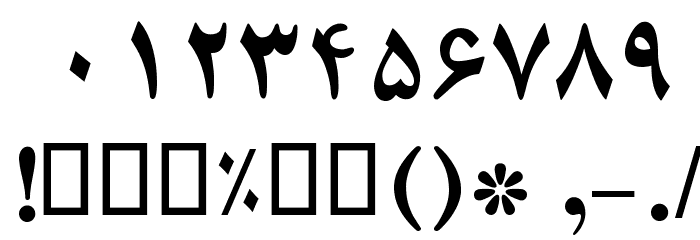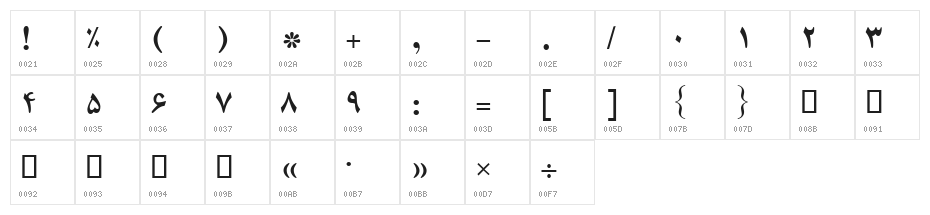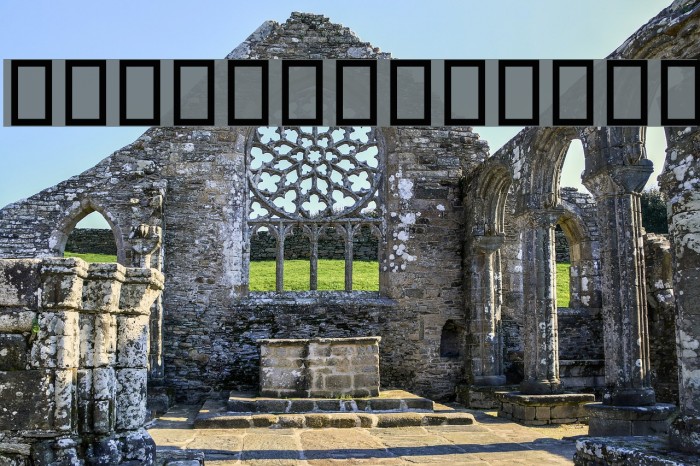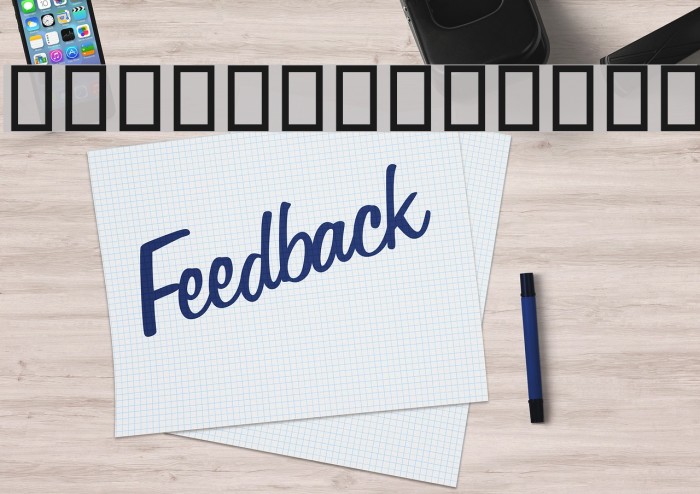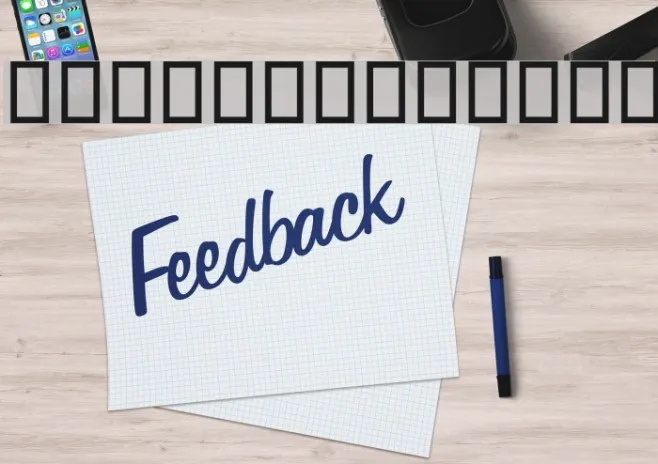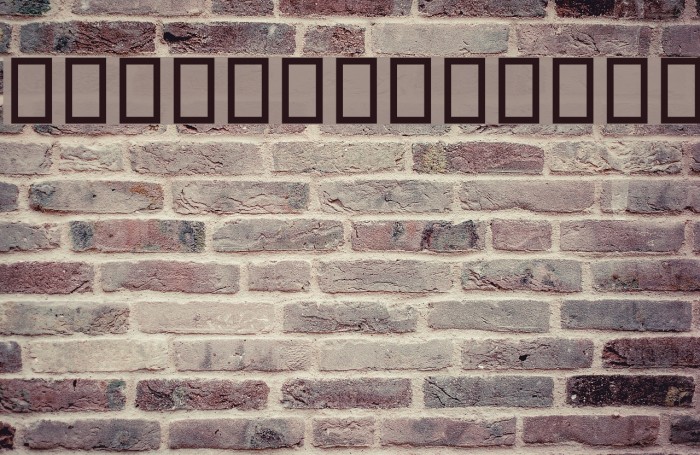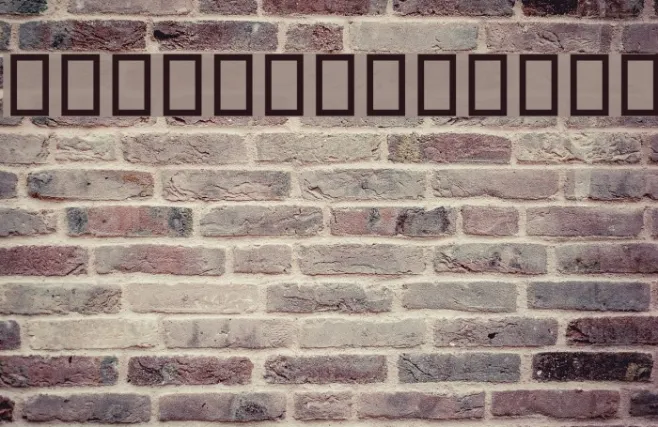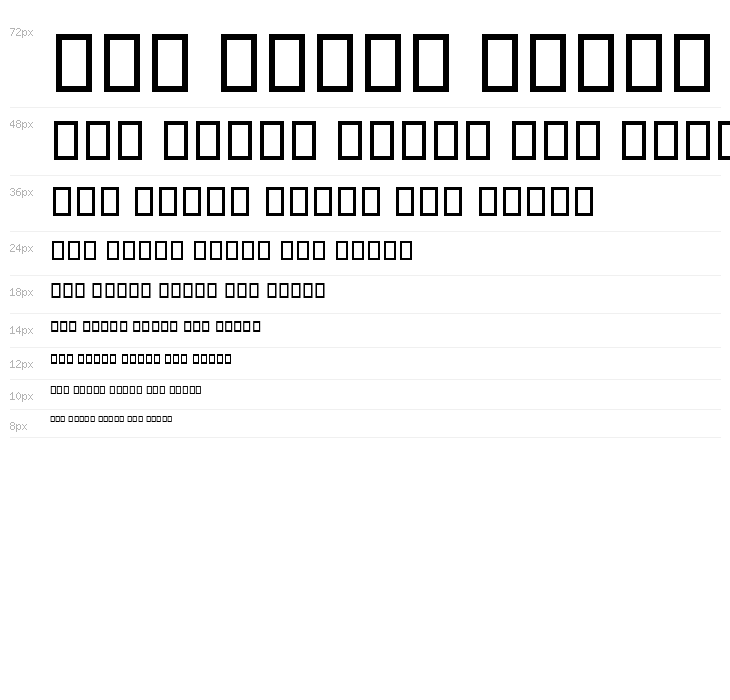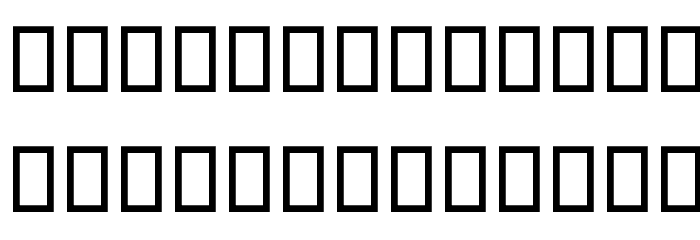
Compset Bold Font
Compset Bold Description
This font features a bold and striking design with a strong presence. The characters are crafted with a high level of contrast, showcasing thick strokes that give it a robust and impactful appearance. The style is modern and decorative, making it ideal for attention-grabbing headlines or logos. The characters are well-spaced, providing a balanced and readable text flow, even in bold weight. Its unique style can add a distinctive touch to any project, making it suitable for branding, advertising, or any creative design that requires a bold statement.
| Proposed Projects | Ideal for branding, advertising, headlines, and creative design projects. |